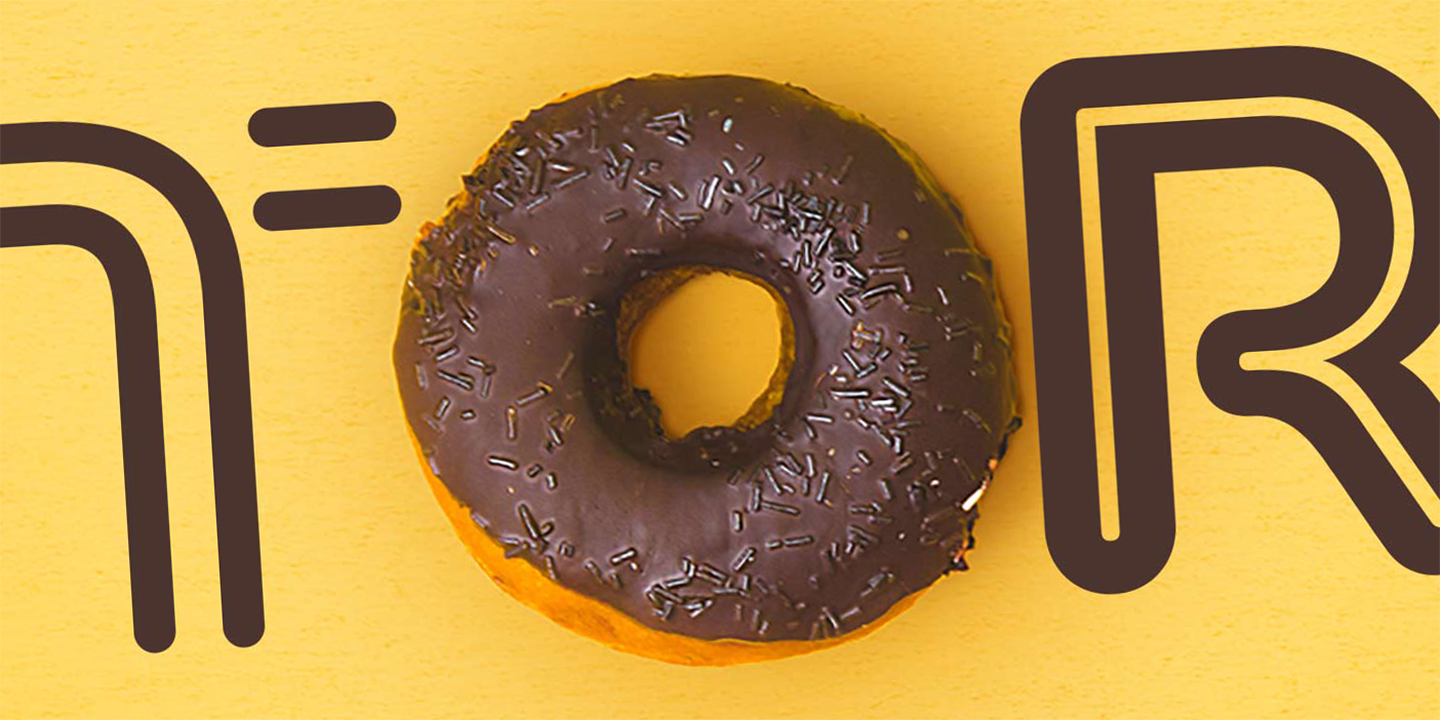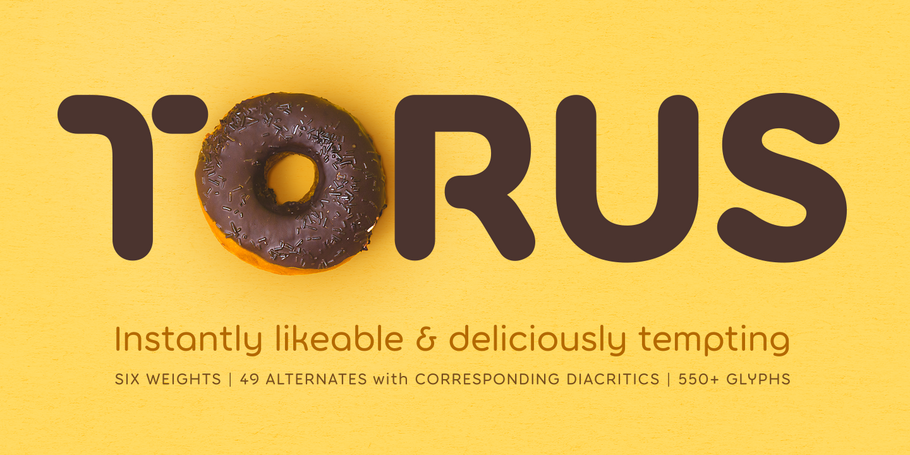
How to make great artwork for fonts.
For your next release, why not try going the extra mile and see how it affects your income and brand reach?
One of the most enjoyable aspects of being a type designer is reaching the point where you get to play with your brand new typeface and create some engaging promotional graphics. This is your chance to show the world just how stylish, intricate, and versatile your fonts can be. First impressions count, and, in a highly competitive arena, having impactful imagery is perhaps your best chance to persuade potential customers from perceiving your fonts as a “maybe” to becoming a “must have”.
In this article, I aim to guide you through the process of creating great artwork for your fonts by sharing my own experiences and methods, and why I believe it is worth going the extra mile when creating your promotional graphics.
Work and Play
While it may be logical to start creating promotional imagery once your fonts are ready to release, I find I am exploring visual concepts as soon as I have drawn a basic alphabet. This helps to form the typeface in your mind and on screen. You may find practical uses at an early stage which in turn defines a purpose and personality for the fonts. When playing with the embryonic forms in tandem with drawing each glyph and expanding the typeface toward completion, allow your imagination to flow. You can stumble across a new design direction or decide that you need to create additional weights or widths to cover the full potential of your creation. This is what happened to me during the process of creating PG Grotesque. After completing the regular weights, it struck me that a compressed version of the fonts would be perfectly suited for movie poster credits. It would take considerable time to complete this additional work, but the end result was absolutely worth the effort.
The Name Game
As a type designer/foundry you will have no doubt on numerous occasions conjured the perfect name for your new type family, only to discover that it has already been taken by another foundry in the past. Once you eventually decide on a name for your next release, can that name be used as an integral part of your visual concepts to illustrate the typeface’s personality? This is perhaps the easiest of all methods to begin creating images that will give your fonts a strong voice. It is akin to building a brand for your type family and I have used this approach on numerous occasions with Torus, Cream, and Arise being notable examples.
Unique Characteristics
Naturally, you will want to show off your typeface’s unique characteristics within your array of images. A good way to showcase your craft and attention to detail is to highlight particular elements within certain glyphs that have flair or distinctive attributes. This is when a more technical style of artwork can be most beneficial where those stylish and unique elements are highlighted and annotated.
House Style
Perhaps a long-term consideration for your promotional graphics is to create a “house style”, whereby you set a standard format and colour scheme that can be applied to numerous type releases. This can really help to build your foundry brand and solidify your reputation in the minds of type users – particularly so if you are also creating high quality graphic examples of your fonts in use. Take a look at superb examples of house styles by Hoefler&Co. and Connary Fagen, Inc. for inspiration.
Have Fun!
It’s really important to show the joy you had using your own fonts. I believe this is a major contributor to inspiring someone to invest in your typeface. It’s a chance to let your imagination run free and create something based around your interests, products that you are familiar with, or whatever comes to mind. Perhaps you could create a brand for an imaginary health food company? You could have fun showcasing your fonts with the logotype, packaging, advertising, and so on, creating “real world” photographic scenarios for the products or more illustrative examples if that suits your style better. For Modica Pro, I created dozens of record sleeves in the graphic design style of the Blue Note record label that I have long admired and chose the best ones for my promotional graphics. The fonts take prominence in the names of fictitious musicians – unbeknownst to many, all of those names were characters from a favourite TV comedy show of mine. I enjoyed leaving that Easter egg there for other fans of the show to pick up on.
Adding Personality
Whether you are an individual or part of a team, you can add personality to your foundry by showcasing your interests, skills (aside from type design), sense of humour, and much more when promoting fonts. For instance, it may be the easy option to grab a royalty free mockup image of a billboard and insert your typography into that for one of your promotional images. If your interests and skills include fitness and photography, why not combine them to create an advertisement for a gymnasium? What if you took a photo of a billboard local to you and learned how to manipulate that shot by use of smart objects in Photoshop? With a little extra effort, you will have created something unique that is genuine and realistic. Showing that you have put extensive thought and application into producing engaging imagery adds a layer of personality to your foundry brand.
Size Matters
Another important element to consider when highlighting the unique attributes of your new typeface is to portray the scale of your beautiful characters. Whether your font works well in smaller point sizes or much larger, show off the scale and proportions in at least one image. You should consider your words and phrases carefully and try to incorporate glyphs that have a strong personality. Choose the most distinctive characters – especially if they have ligatures, alternates, flourishes, or flamboyant swashes.
Avoiding Pitfalls
All foundries want to portray themselves as professional and offering the best quality typefaces available. However, if your promotional images contain glaring errors or spelling and grammar mistakes, this will most likely have a detrimental effect on the impression of your typeface and foundry. Always, always proofread and have a third party check your imagery before release. If you struggle with the English language, then you might want to consider working with a native speaker to ensure your phrasing, context, and terminology are correct. Alternatively, create typographic images that are in your native language, you will find this will be far more comfortable for you and provides a more authentic result. Also, if you or your foundry team are not confident in the process of creating visual imagery for your fonts, then I would strongly advise liaising with a graphic designer to create professional graphics on your behalf.